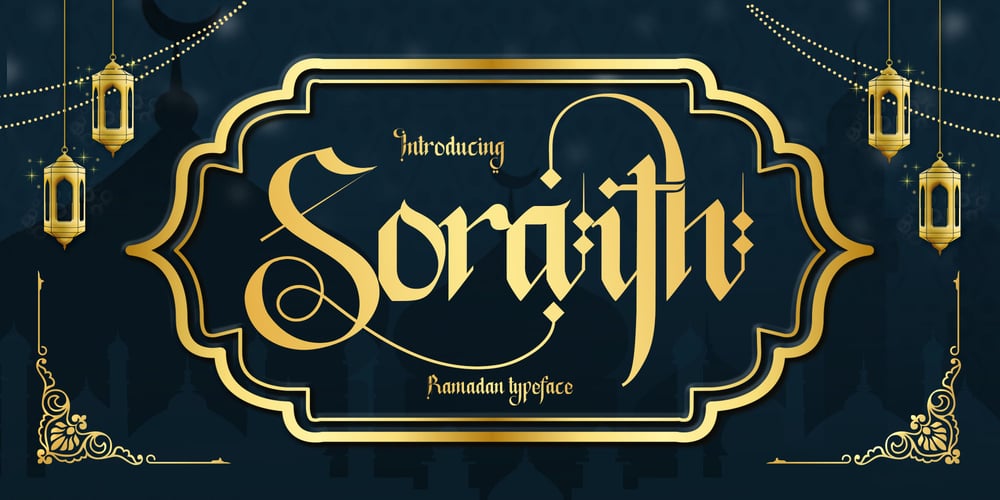
Soraith
Soraith font
Soraith Font Family was designed by Virgiawan Listanto and published by Inviline. Soraith contains 1 styles and family package options. Experience the artistry of Turkish calligraphy. Intricate designs and elegant script capture the beauty of the Turkish language and culture. Perfect for adding a touch of sophistication to your home or as a unique gift. High-quality print, ready to frame.